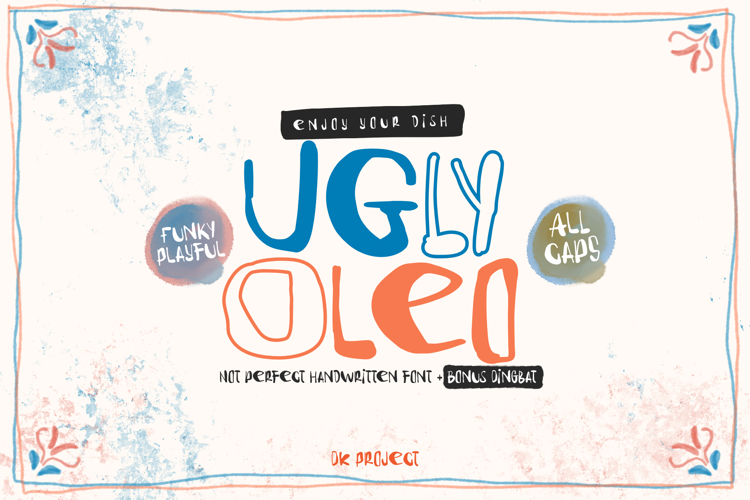
Ugly Oleo Font
Ugly Oleo – Messy, Bold, and Beautifully Unique
Meet Ugly Oleo – a cartoonish, handwritten font that proudly breaks all the rules. It’s messy, and it’s exactly what makes it so eye-catching. With its irregular strokes and imperfect charm, Ugly Oleo brings a handcrafted, rebellious spirit to any design.